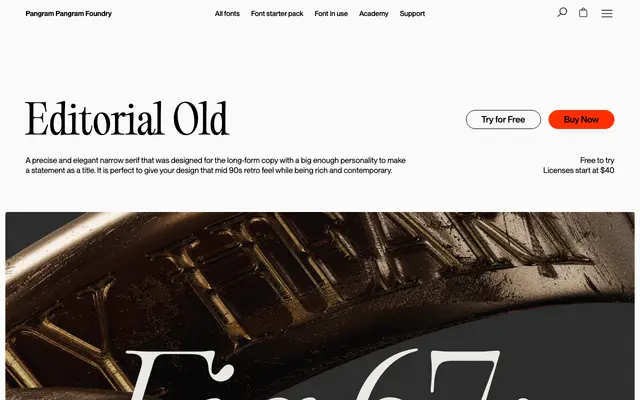
Editorial Old
Pangram Foundry · Mat Desjardins, Fred Wiltshire, Francesca Bolognini · 2023
A narrow serif with softened curves and abundant ligatures, designed as a looser, more eroded companion to Editorial New with a mid-90s retro character.
Born as a deliberate reworking of Pangram Pangram's Editorial New, this typeface relaxes the tension in the curves, softens the terminals and introduces droopy, luscious ligatures that lean into an eroded, vintage sensibility. Sixteen styles span eight weights from Thin to Heavy with matching italics, and the family is available as a variable font. At 463 glyphs per style, it covers a broad range of Latin-based languages and includes OpenType features such as discretionary ligatures in both upper and lower case, standard ligatures and case-sensitive forms.
A narrow serif with softened curves, relaxed connections and droopy ligatures; the foundry describes it as an eroded, vintage-inflected spin-off of Editorial New, placing it within a transitional serif tradition with display-leaning personality.